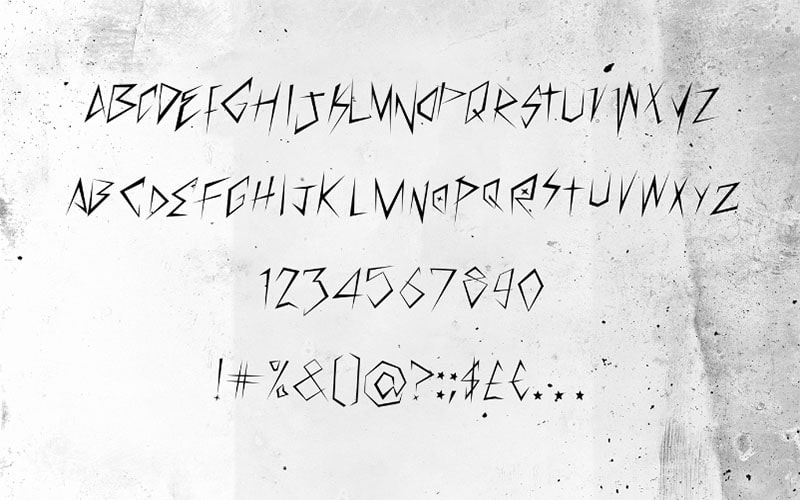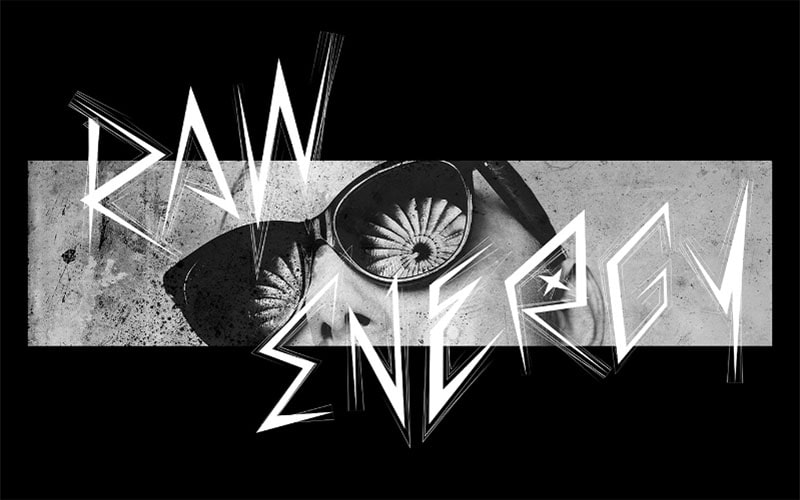
The Rock Star Font is a bold and energetic typeface designed to capture the spirit of rock music and the rebellious attitude of its icons. Created by the talented typographer Mike Brando.
This font embodies a sense of dynamism and flair, making it an ideal choice for designers aiming to infuse their projects with a powerful and striking aesthetic.
Mike Brando, a renowned typographer known for his innovative and bold designs, is the creative mind behind this Font. It offers a single, highly stylized form that emphasizes bold, angular lines and a rugged aesthetic.
Brando’s work often reflects a deep appreciation for music and pop culture, and with Rock Star, he has created a typeface that channels the energy and charisma of rock legends.
The font includes a comprehensive set of characters, including uppercase and lowercase letters, numerals, punctuation marks, and special symbols, offering versatility for different design applications.
Suitable for brands that want to convey a sense of edginess and attitude, especially in the music and entertainment industries. Download Rock Star Font today and let your designs rock the stage with unparalleled flair and impact.